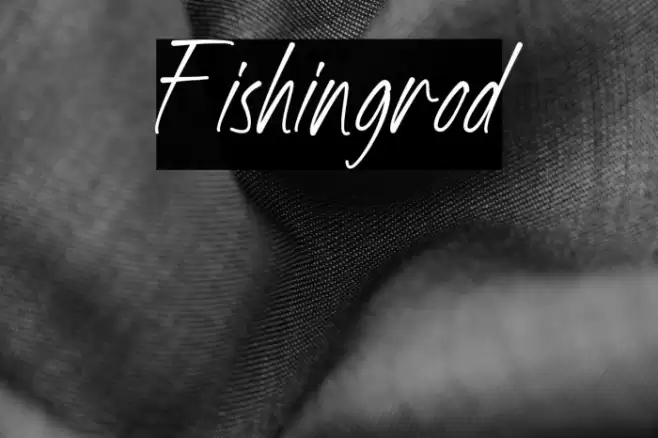
Fishingrod Font
Fishingrod Description
This font exudes a dynamic and energetic style with its flowing, cursive script. The letters are elegantly slanted, giving a sense of movement and fluidity. The strokes are smooth and continuous, creating a handwritten appearance that is both stylish and approachable. The uppercase letters are bold and prominent, while the lowercase letters maintain a consistent flow, enhancing readability. Numbers and special characters are crafted with the same attention to detail, ensuring a cohesive look across all elements. This font is perfect for projects that require a personal touch or a creative flair.
A dynamic, cursive script font with a flowing, handwritten style from Regular fonts.
- Proposed Projects: Ideal for wedding invitations, greeting cards, branding, and social media graphics.
- Use Case: Logos, Headlines, Invitations